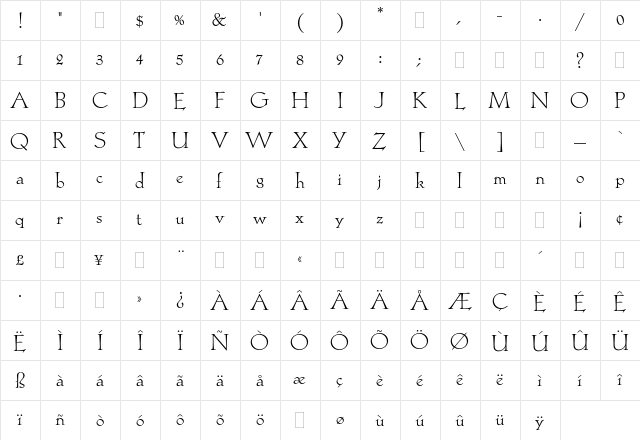
Locarno Light Plain
Design Context for Locarno Light Typeface
Locarno Light takes a measured approach to typography — its balanced proportions and neutral character make it a reliable workhorse for both digital and print work. Its slender proportions lend an understated elegance to any composition.